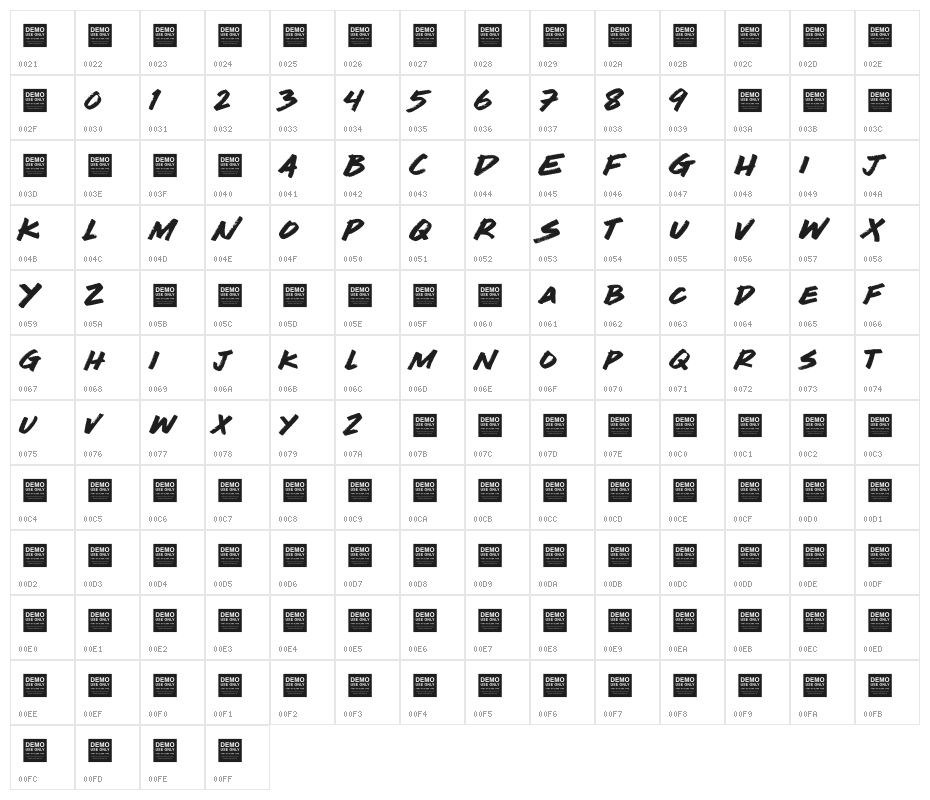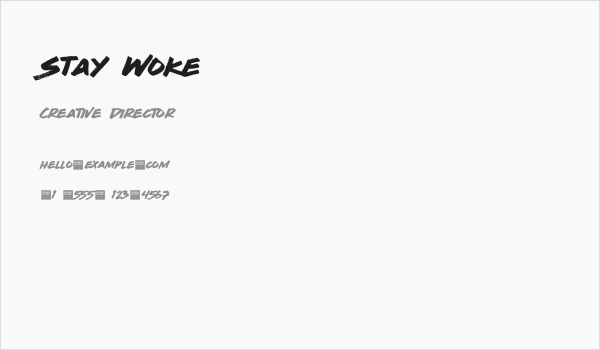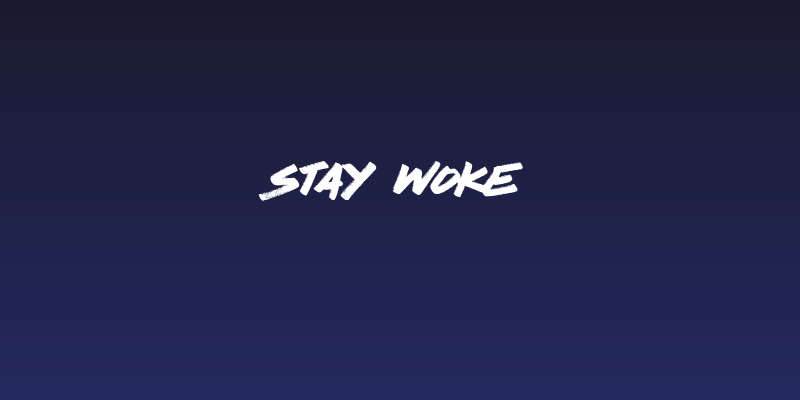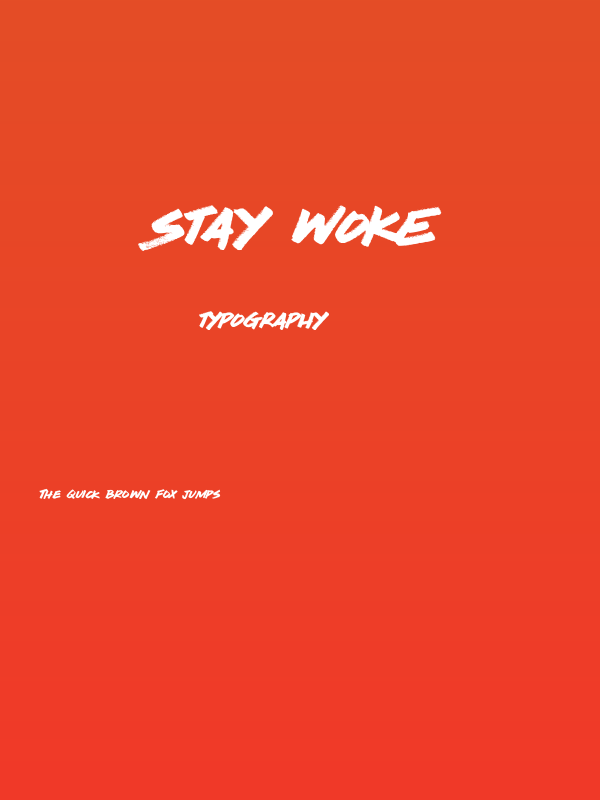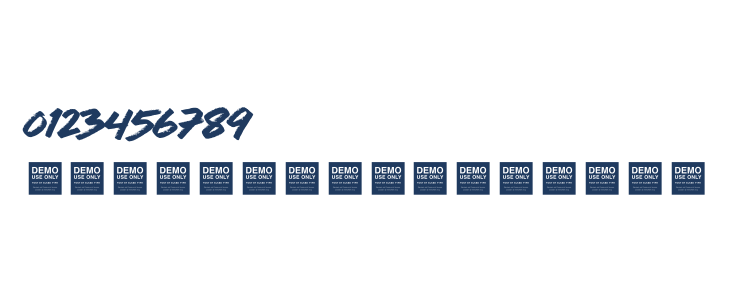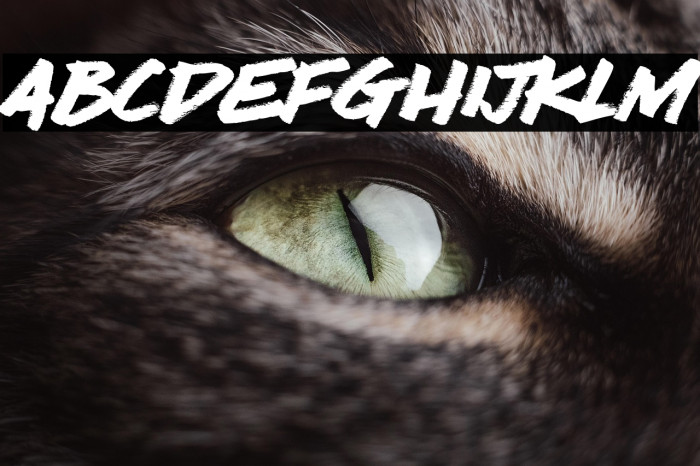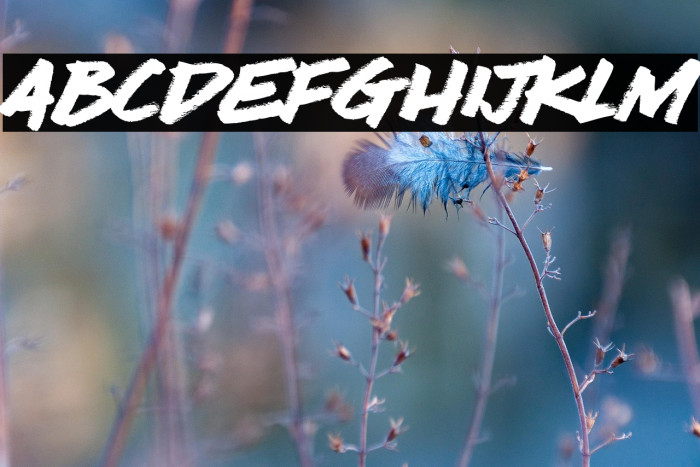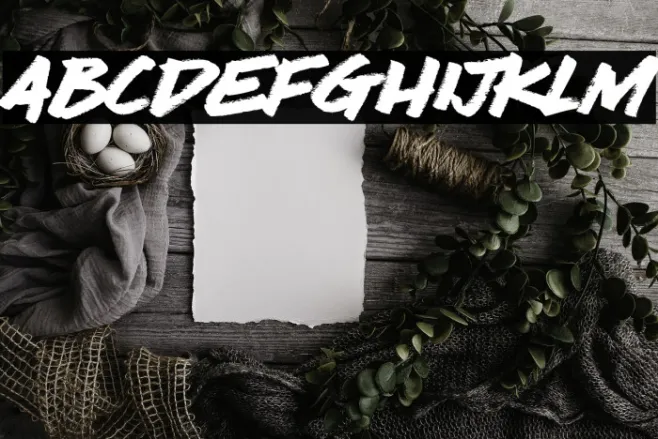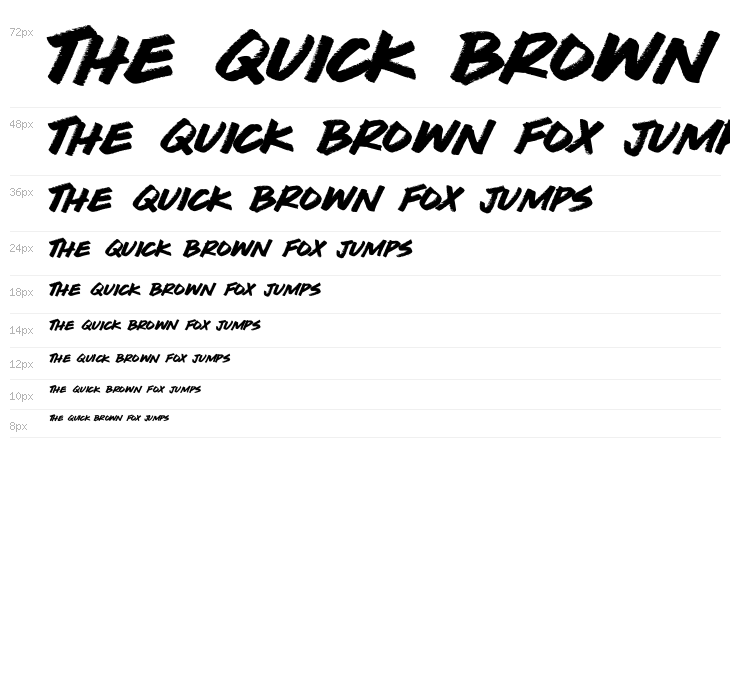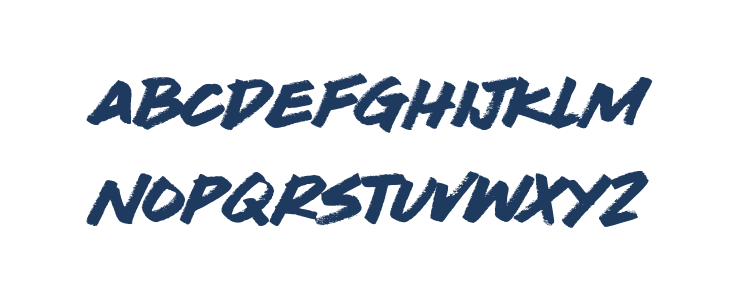
Stay Woke Font
Stay Woke Description
This font features a bold, brush-like appearance with a dynamic and energetic style. The strokes are thick and uneven, giving it a hand-painted look that adds a sense of movement and spontaneity. The uppercase and lowercase letters are consistent in their boldness, with a slight slant that enhances the casual, yet assertive feel. The numbers maintain the same stylistic approach, ensuring uniformity across all characters. This font is ideal for projects that require a strong, impactful visual statement.
| Proposed Projects | Perfect for posters, branding, merchandise, and any creative project needing a bold, artistic touch. |